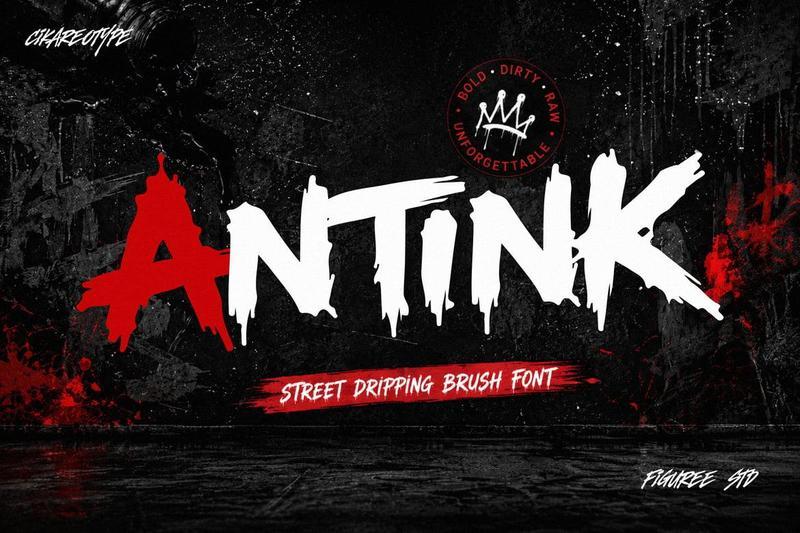
Bring raw energy and expressive movement into your typography with Antiink Street Dripping Brush Font. Designed with an authentic dripping brush style, this font delivers a strong visual presence for projects that need bold lettering and dynamic character.
Antiink combines hand-painted brush strokes with drip details, creating a typeface suitable for posters, event graphics, album artwork, social media content, gaming visuals, video thumbnails, title designs, and creative promotional materials. The textured shapes give every word a handcrafted feel while maintaining readability across different layouts.
Its expressive brush construction makes headlines more noticeable, while the dripping effect adds depth and personality. Whether used as a large title or supporting display text, Antiink helps create impactful compositions without overwhelming the overall design.
This font is built for creators who need typography that feels energetic, spontaneous, and visually engaging. From digital campaigns to printed materials, Antiink adapts easily to multiple design directions.
**Key Features**
* Uppercase characters included
* Numbers support
* Punctuation & symbols included
* Multilingual support
* Dripping brush style
* Strong display appearance
* Suitable for print and digital projects
* Clear readability for large headlines
* Handcrafted brush texture details
**Recommended Uses**
Antiink works well for:
* Poster designs
* Event announcements
* Music graphics
* Gaming titles
* Social media posts
* Video thumbnails
* YouTube covers
* Festival promotions
* Horror graphics
* Urban-themed layouts
* Creative banners
* Title screens
* Streaming visuals
* Packaging titles
* Promotional artwork
**Why Designers Love It**
Designers choose Antiink because it combines expressive brush movement with a controlled display structure. The dripping details add character without sacrificing readability, making it easier to create standout headlines and memorable compositions.
The font is flexible enough for both digital and printed projects. Multilingual support expands usability across international audiences, while the included symbols and punctuation provide more creative freedom when building layouts.
Its handcrafted appearance also helps create more organic typography compared to standard display fonts, making designs feel more energetic and expressive.
Antiink Street Dripping Brush Font is designed for projects that need bold expression, textured lettering, and strong visual impact. The dripping brush details create a distinctive atmosphere for posters, media graphics, promotional materials, and creative titles.